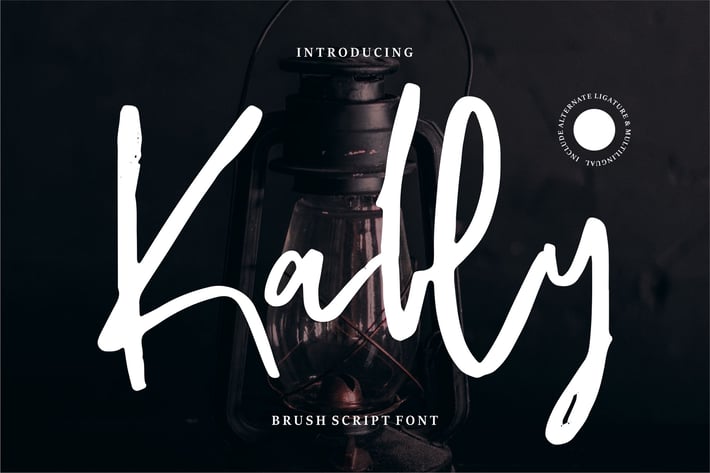
Kally | Brush Script Font
Kally | Brush Script Font with a calligraphy style, So beautiful on invitation like greeting cards, branding materials, business cards, quotes, posters, and more!